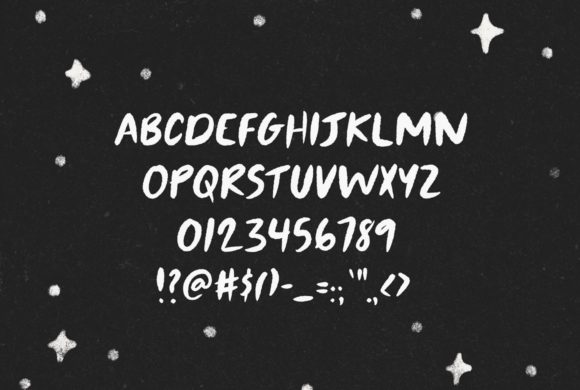
Outer Space Font
db-ku.com - Script & Handwritten -- Outer Space font and graphics kit is a playful handwritten font that is perfect for adding a personal touch to your next project.